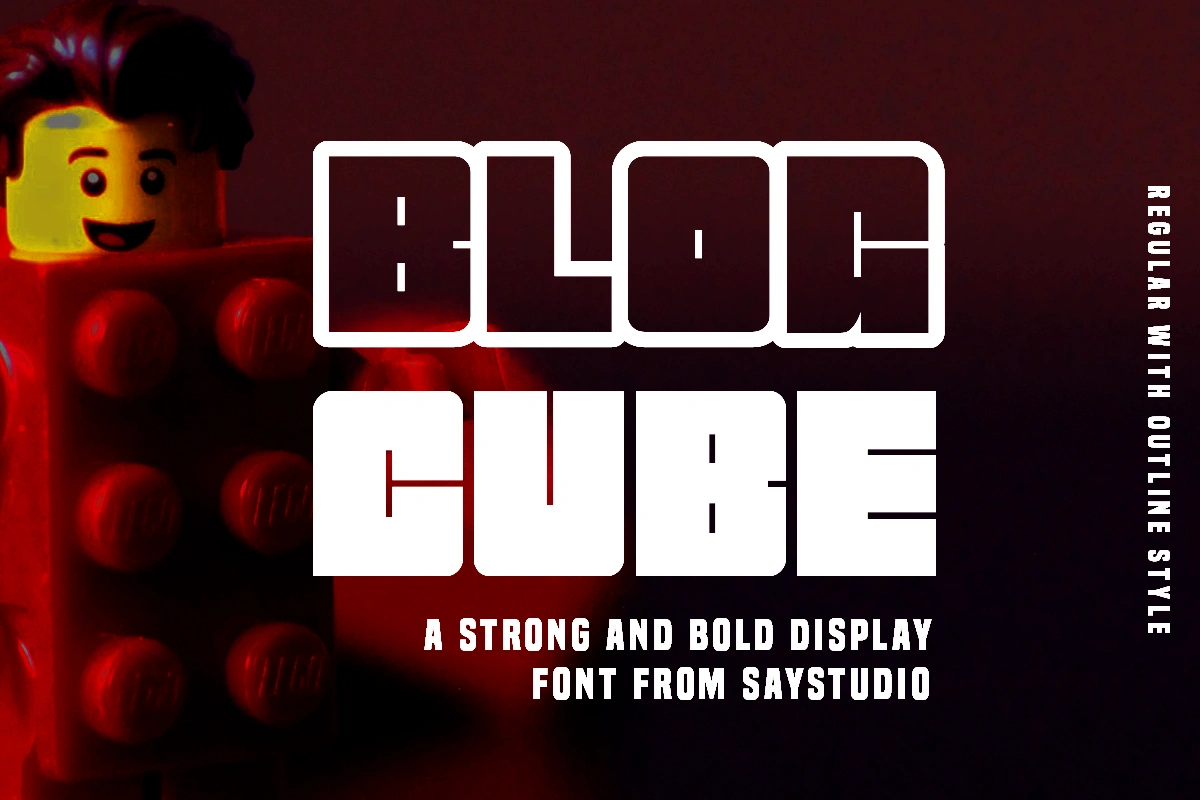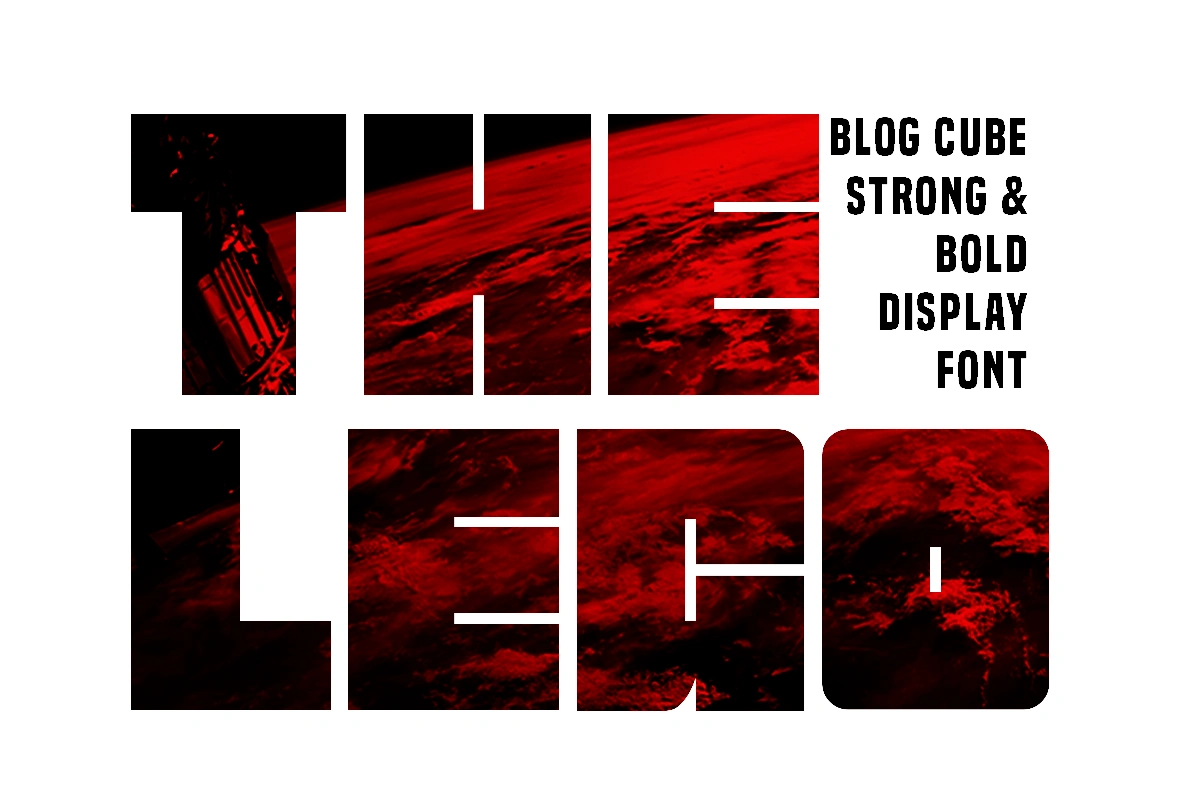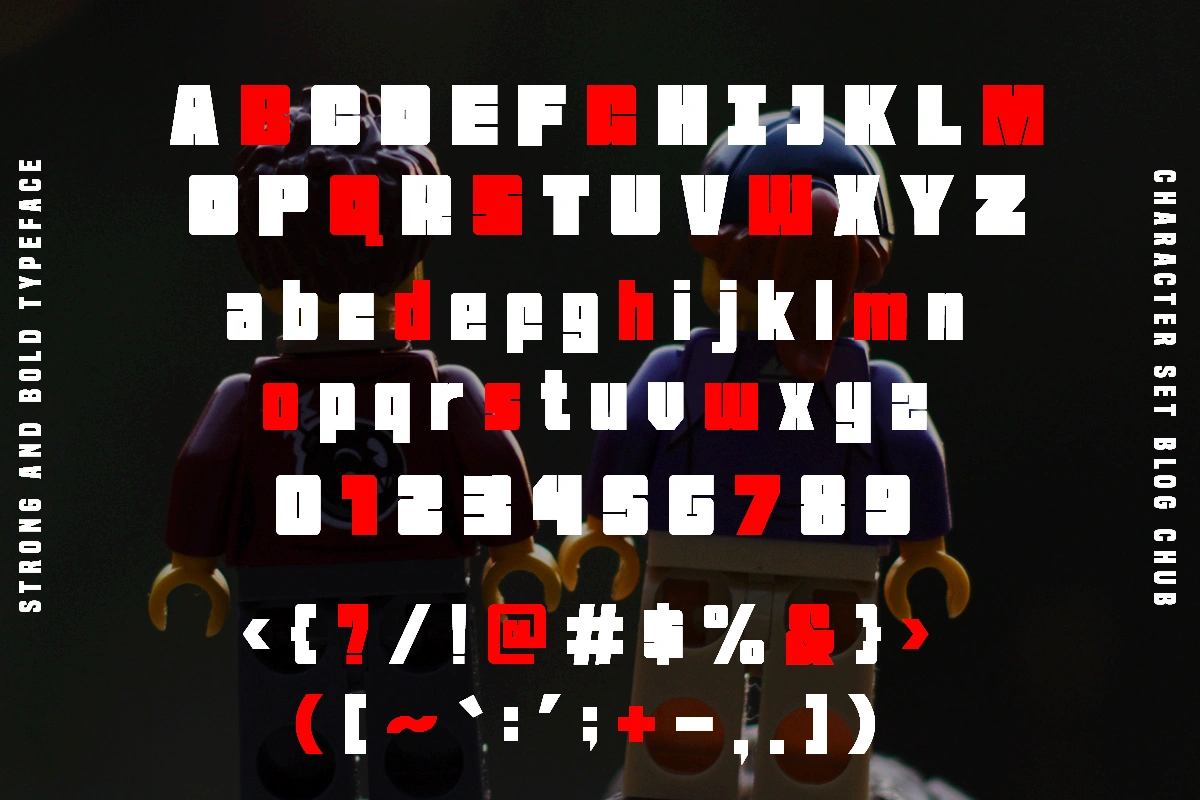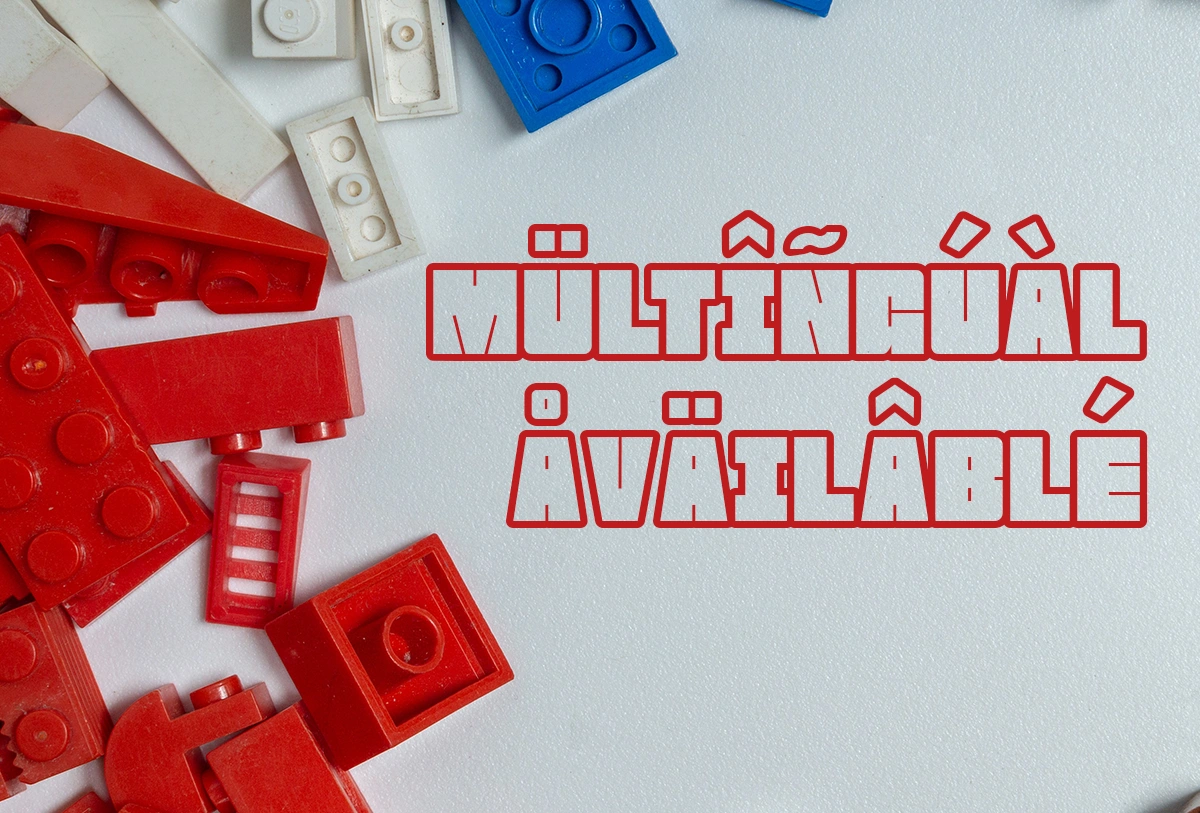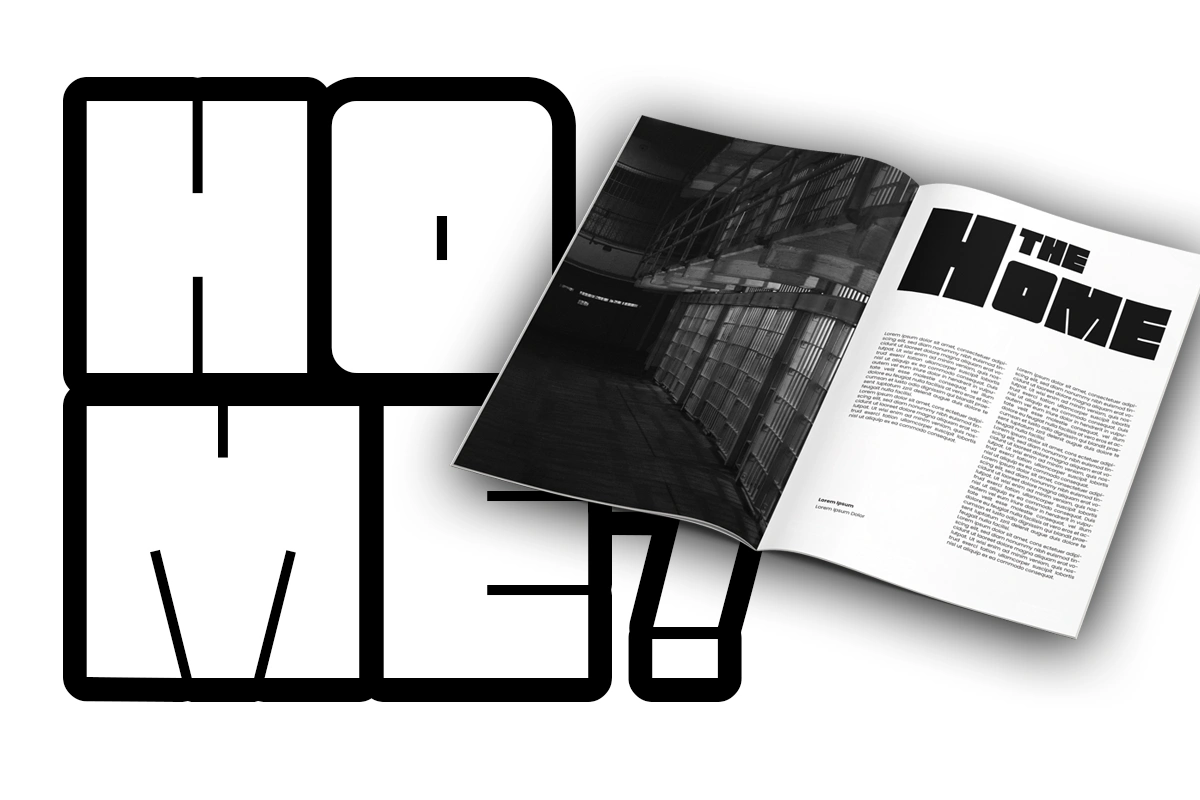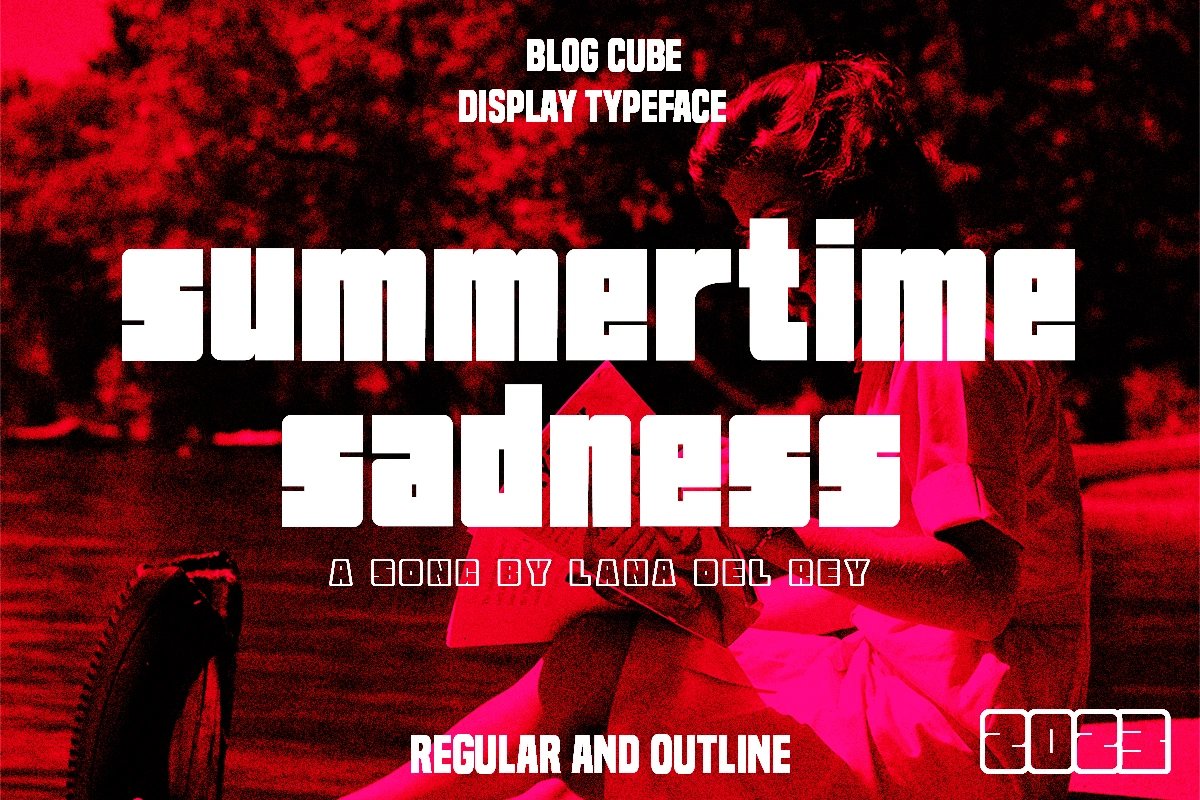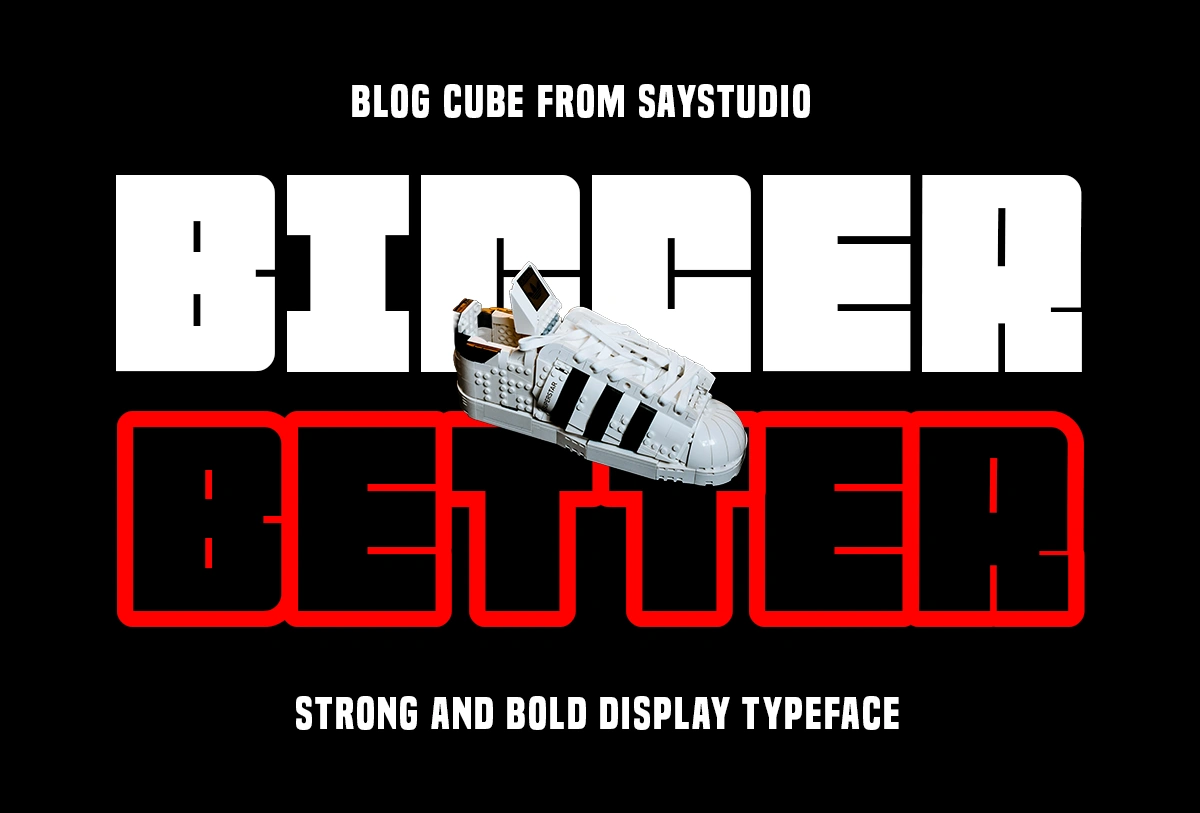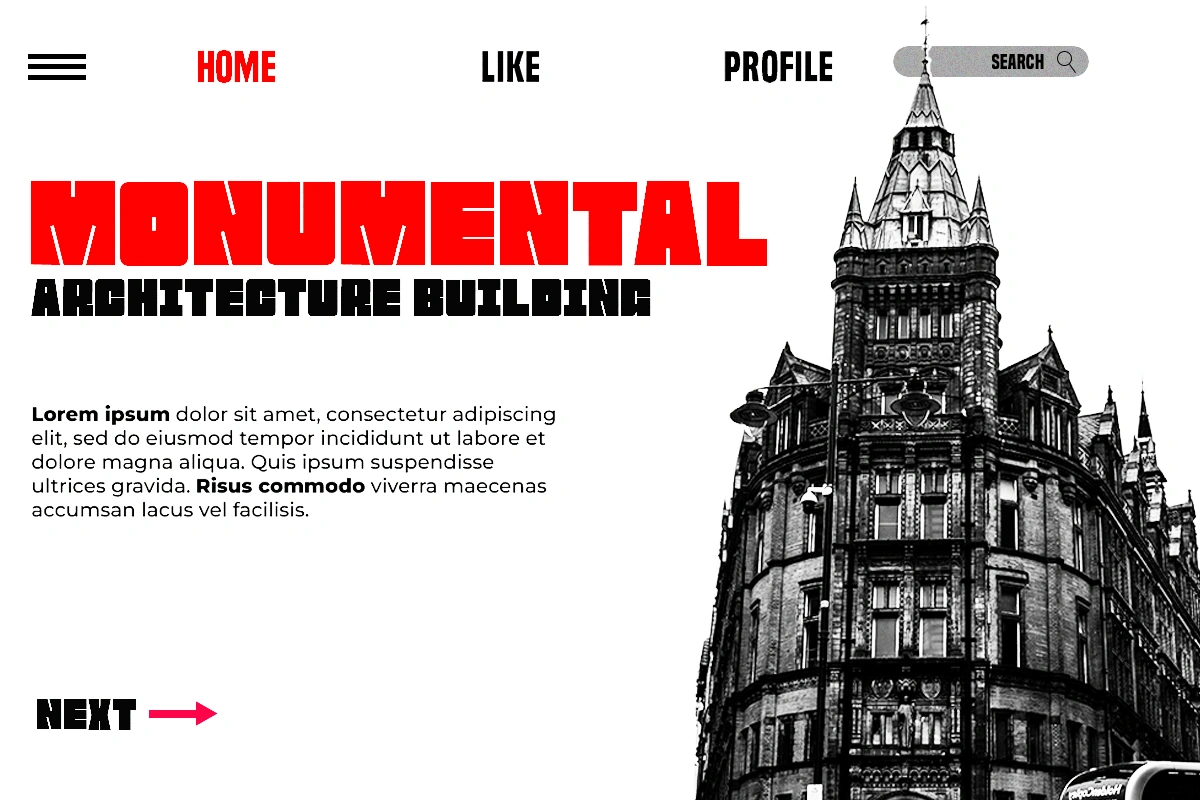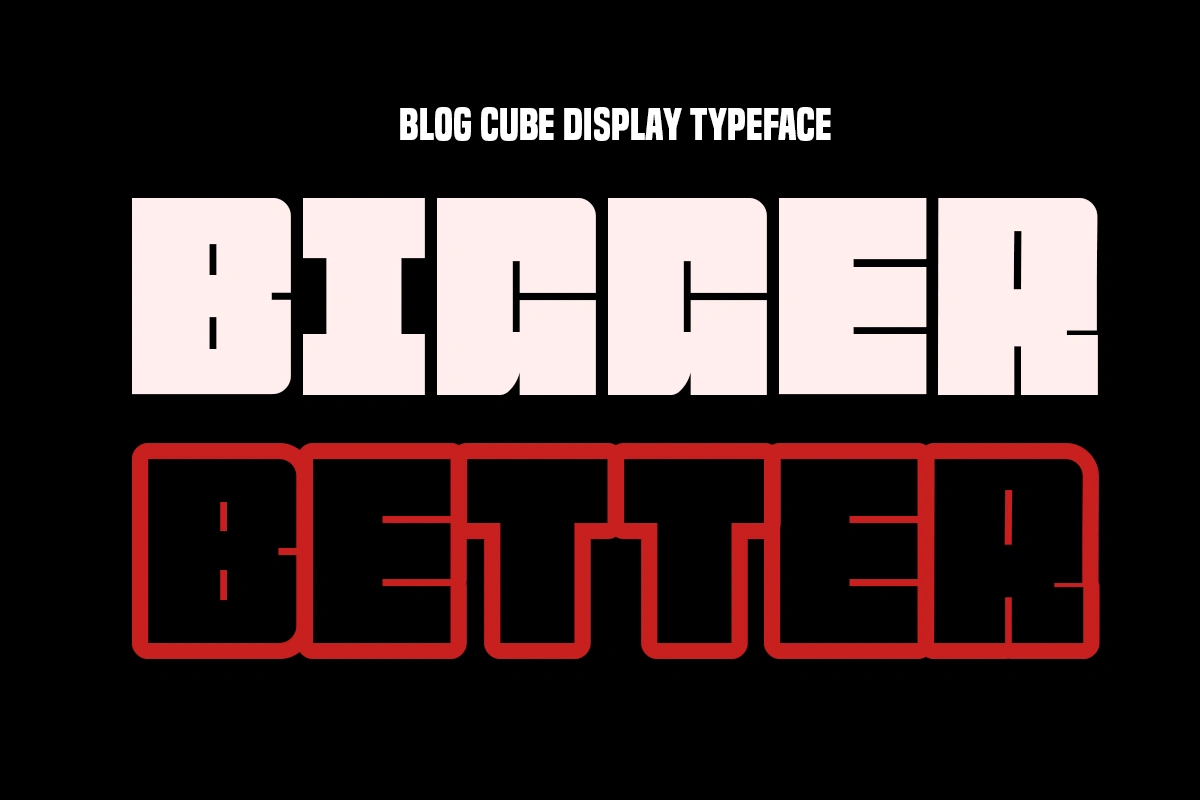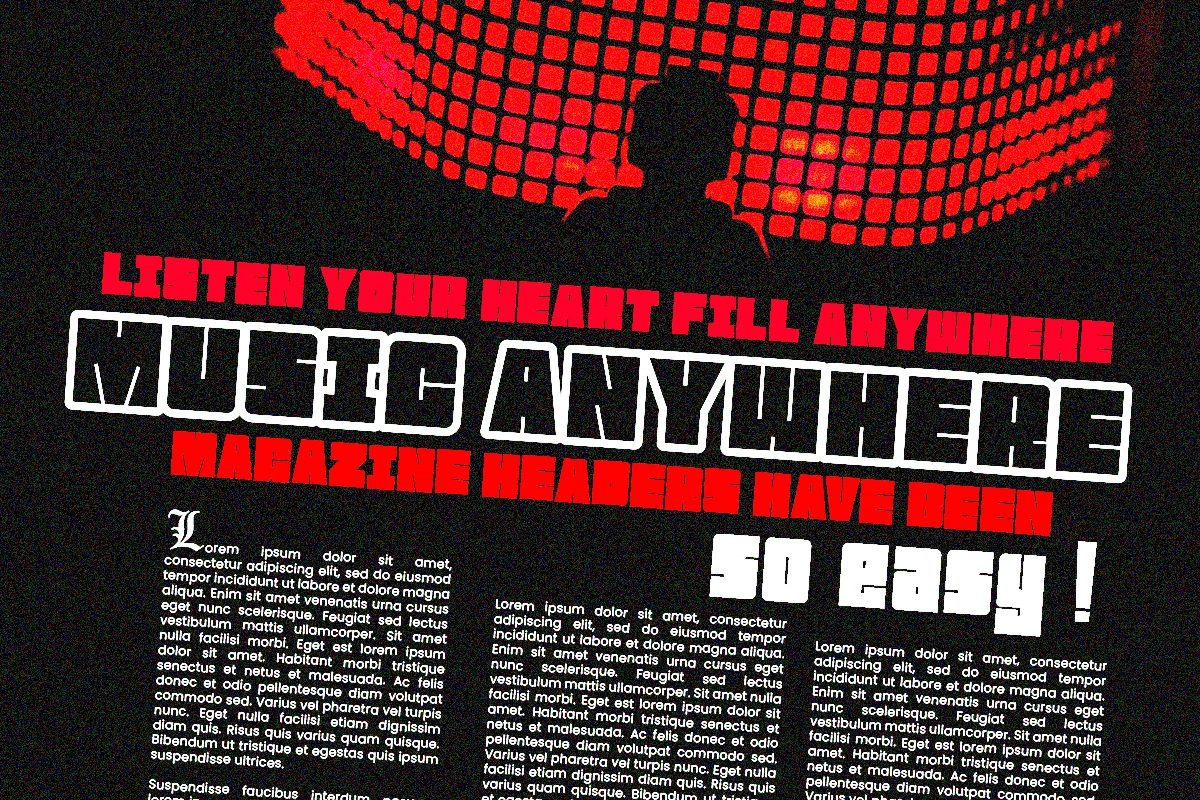
Blog Cube – Bold Display Font
Blog Cube – Strong Display Typeface
Blog Cube is a bold and strong display typeface from rectangle shape that is perfect for your work such as posters, logos, branding, covers, banners, t-shirts and headers, or even large-scale artwork. Creative & Decorative Typography Web Design, Try this font on any surface it will look Stunning!. happy creating. hope you like it!
well, Blog Cube also has an Outline style, is a strong and bold typeface, it has multilingual language, it is useful for your coolest and coolest project up next.